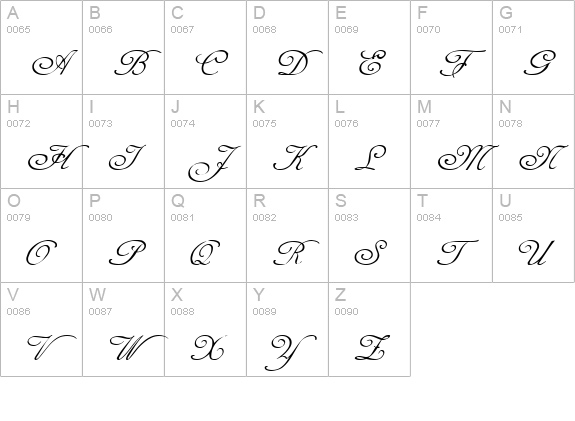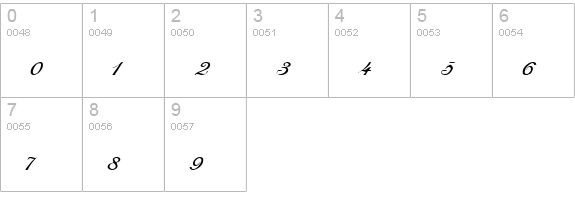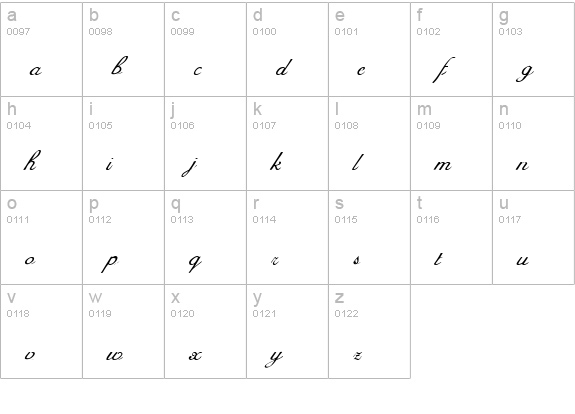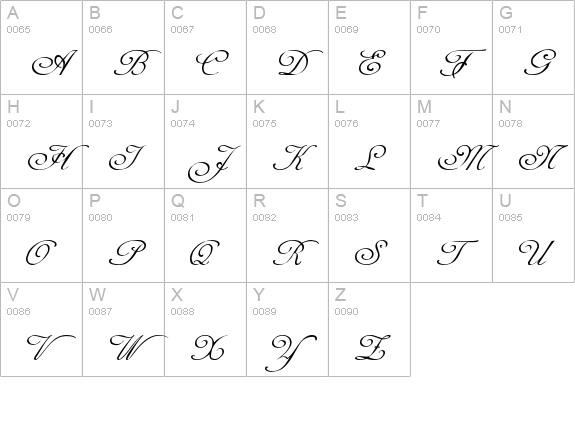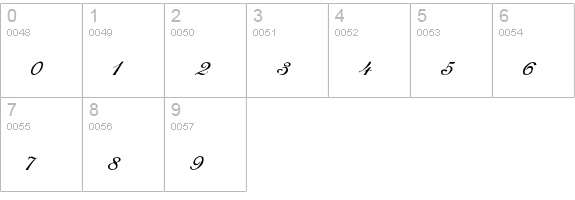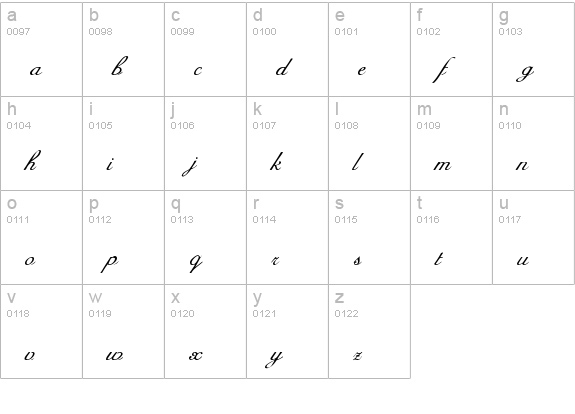
Dorothee Font Details
Dorothee font is a stunning typeface that exudes elegance and sophistication. Its graceful curves and delicate strokes make it the perfect choice for projects that require a touch of refinement. This font is ideal for creating invitations, wedding stationery, branding materials, and more. What's even better is that Dorothee font is available for free download at FontsMarket.com. You can easily access this beautiful typeface and elevate your designs without any cost. Don't miss out on the opportunity to add Dorothee font to your collection and enhance your creative projects with its timeless charm.